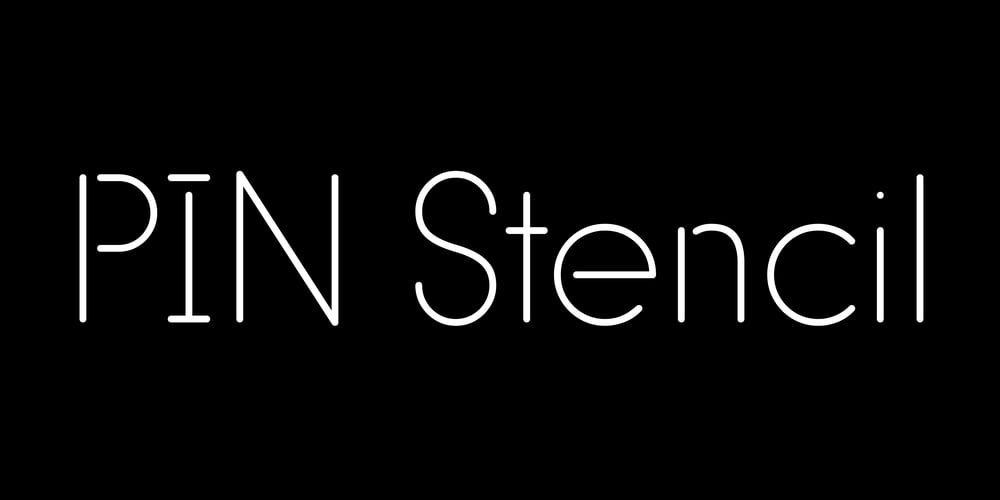
PIN Stencil
PIN Stencil font
PIN Stencil Font Family was designed by Hoon Kim, Jin Kim and published by Colophon Foundry. PIN Stencil contains 3 styles and family package options. Conceived by Korean-born, New York-based Hoon Kim of design consultancy Why Not Smile, PIN is a three-weight, nine-cut family of geometric sans-serif types. The design, available in dot-matrix, stencil and solid variations, is based on an expanding grid in which each weight rests comfortably within the other, expanding out from the stroke’s center-point. Initiated by Kim after a chance look towards the ceiling in a London tube station—which revealed a circular, 24-bulb chandelier above—the project started with a 16-node variation on a geometric dot matrix and grew from there to ultimately include three styles and three weights, each applicable across body copy, headlines, and tables. With a nearly monolinear stroke width and unique construction, PIN is intended to be mixed and matched liberally: lighter weights adjacent to darker ones, stencil alongside solid —a type family in the traditional sense of the word.